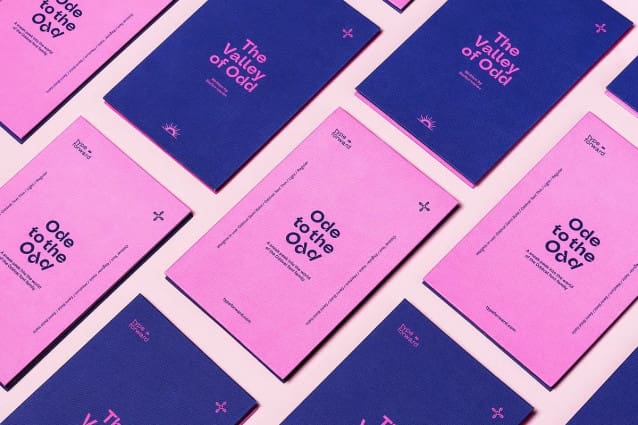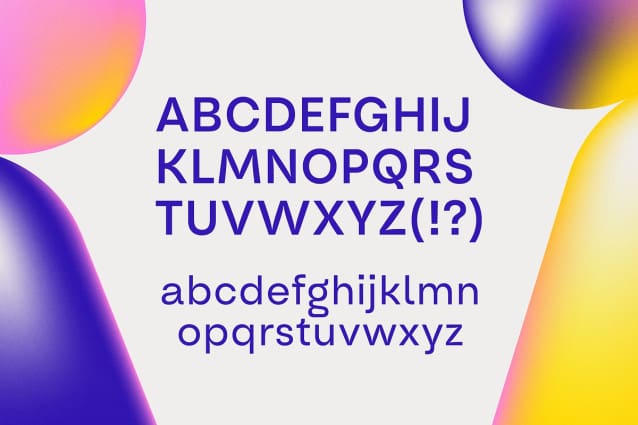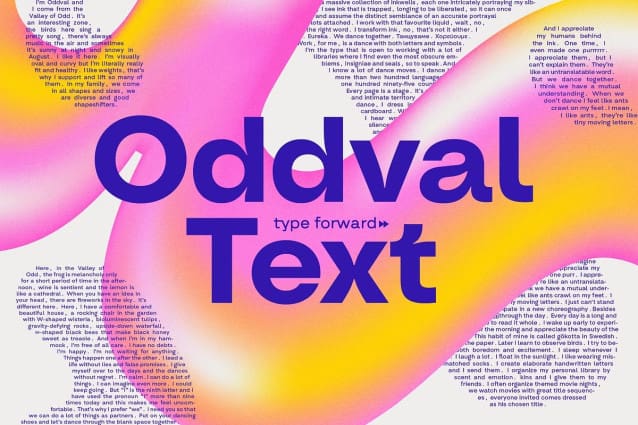
Oddval Text Font, as an extension of the Oddval font family, is designed to improve readability in smaller sizes while retaining the distinctive aesthetic of the original typeface. The typeface is a response to the user’s needs, balancing functionality with the distinctively “odd” design specific to the family. It’s tailored to meet the modern typographic demands of both print and digital media, offering a versatile solution that respects the legacy of its predecessor. Here are two free fonts, font family and commercial, see HERE.